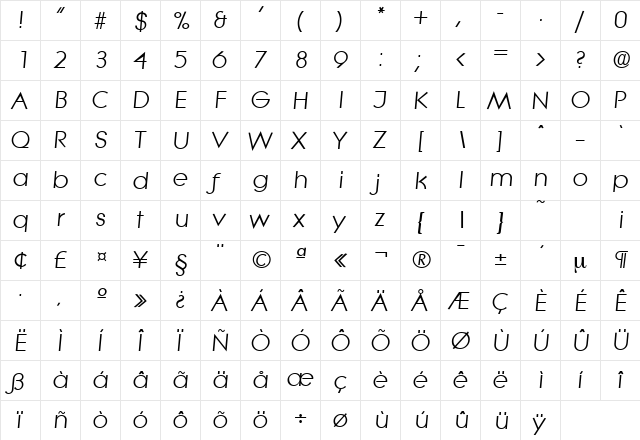
Litera-Serial RegularItalic
Design Context for Litera-Serial Typeface
Litera-Serial is a composed and adaptable typeface that performs quietly and consistently across a wide range of design contexts. Its italic angle brings a sense of urgency and motion to the letterforms.
Pro Tip: Try Litera-Serial for annotation and caption copy alongside an upright companion — the contrast in angle creates a dynamic but ordered typographic system.